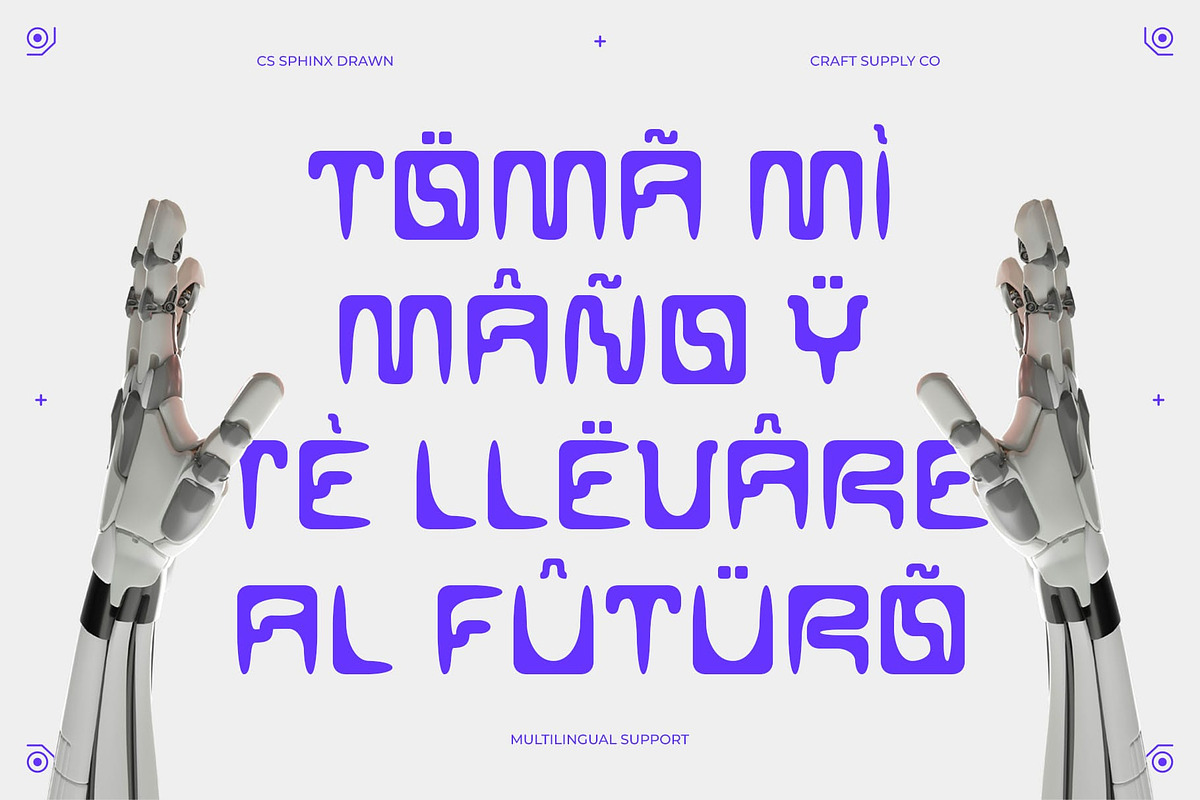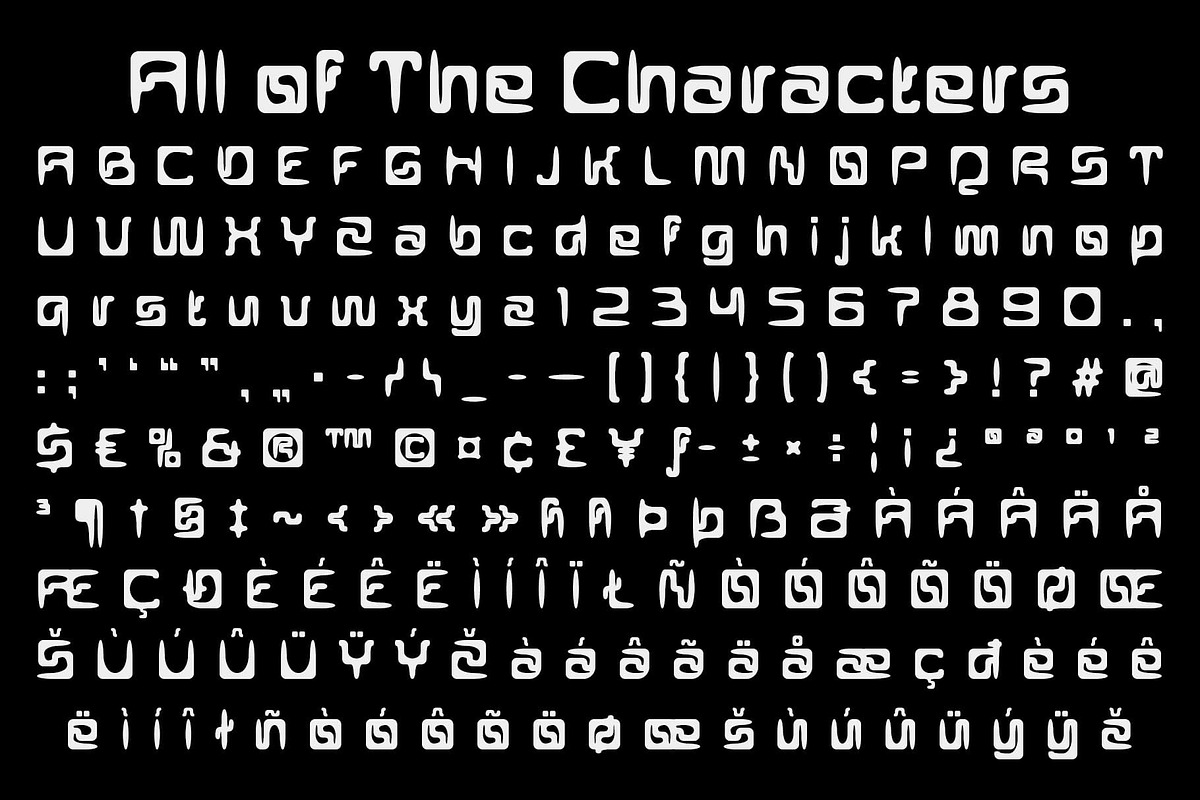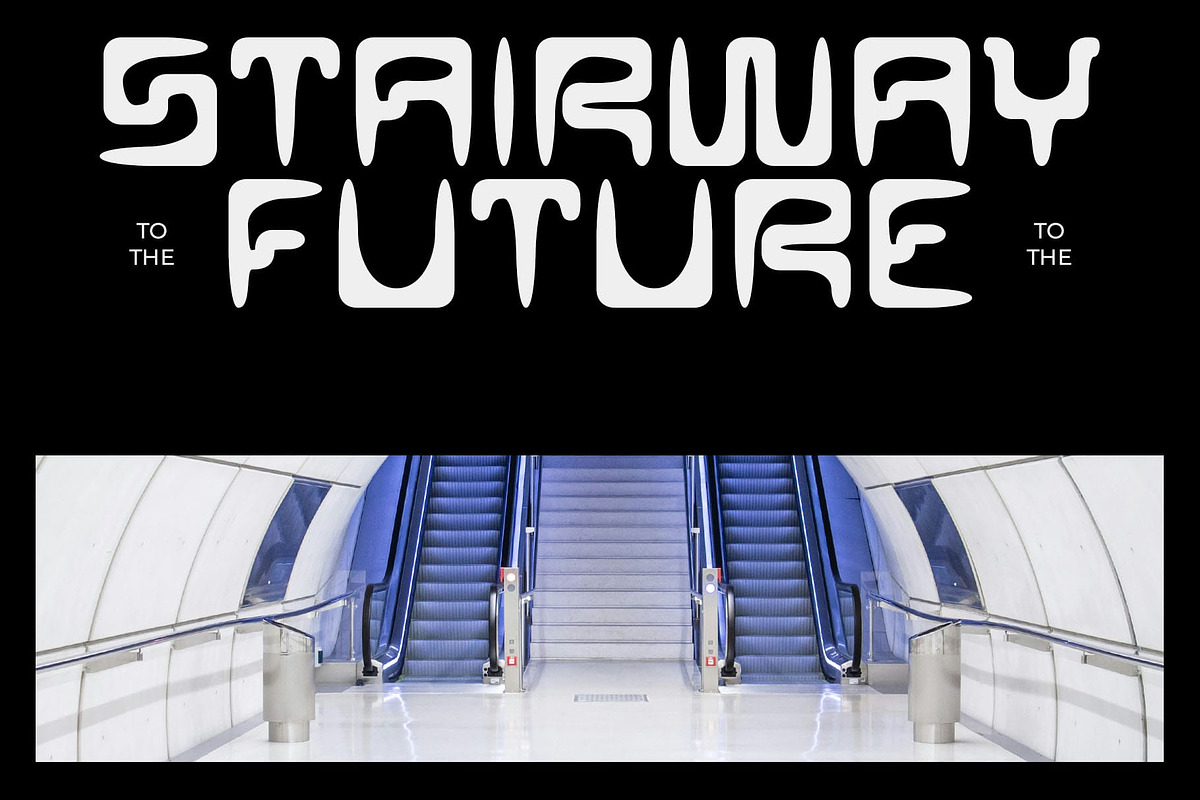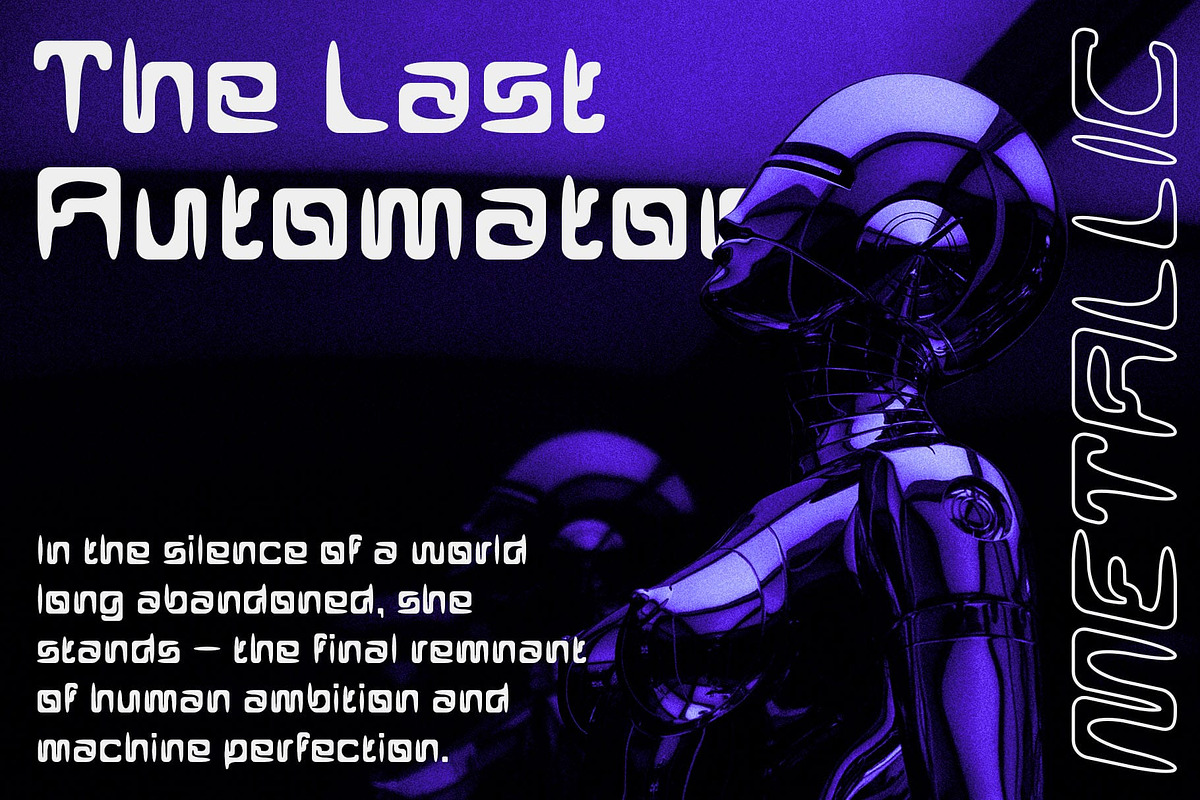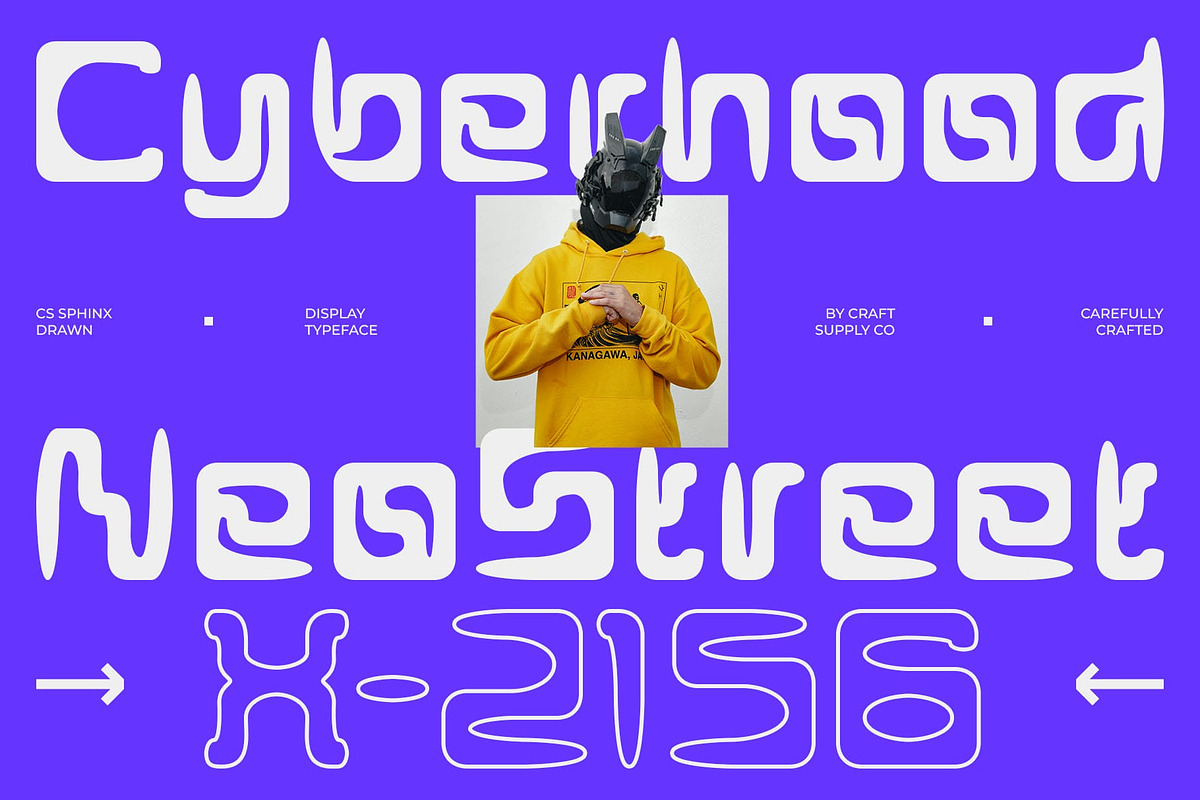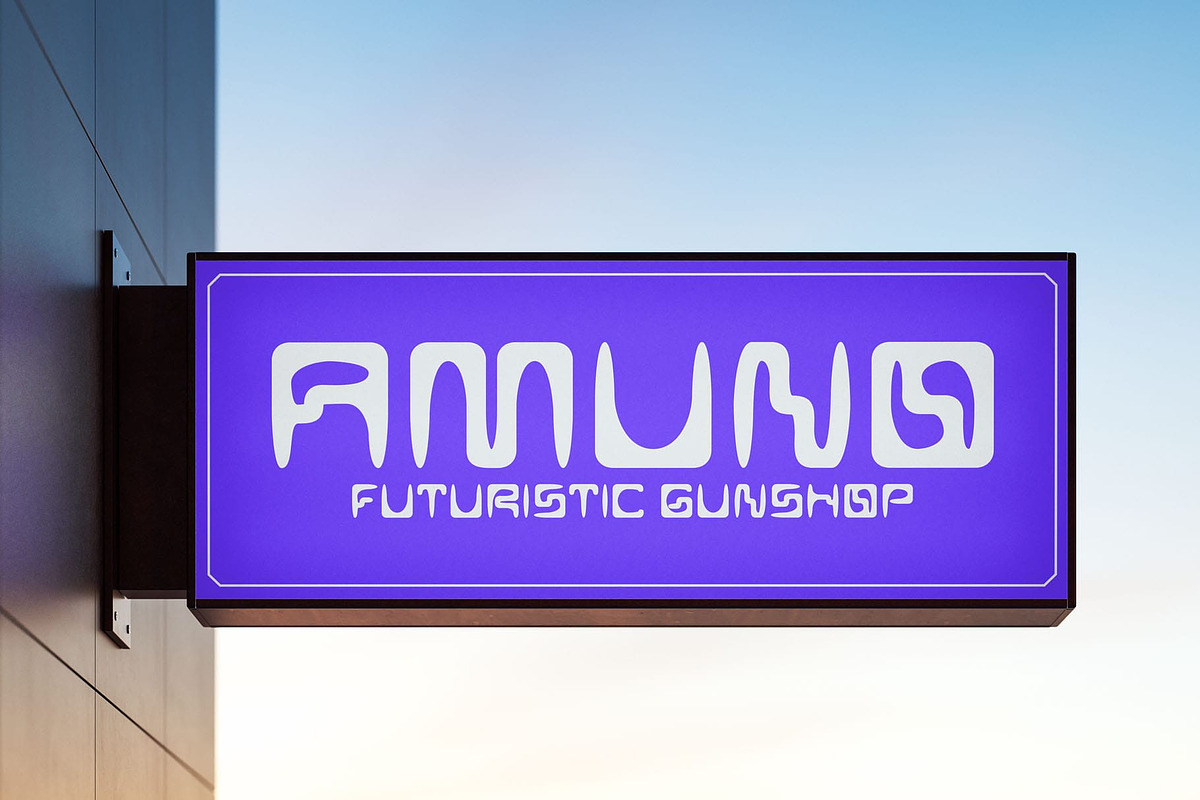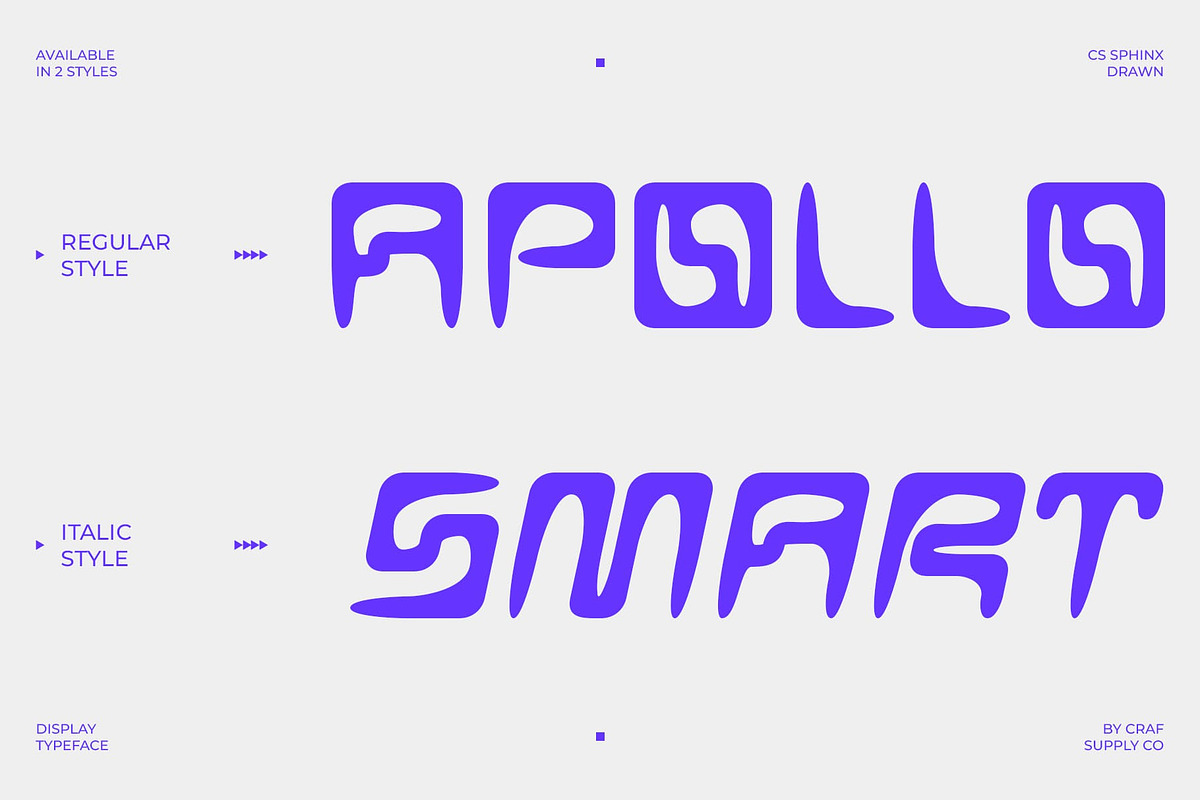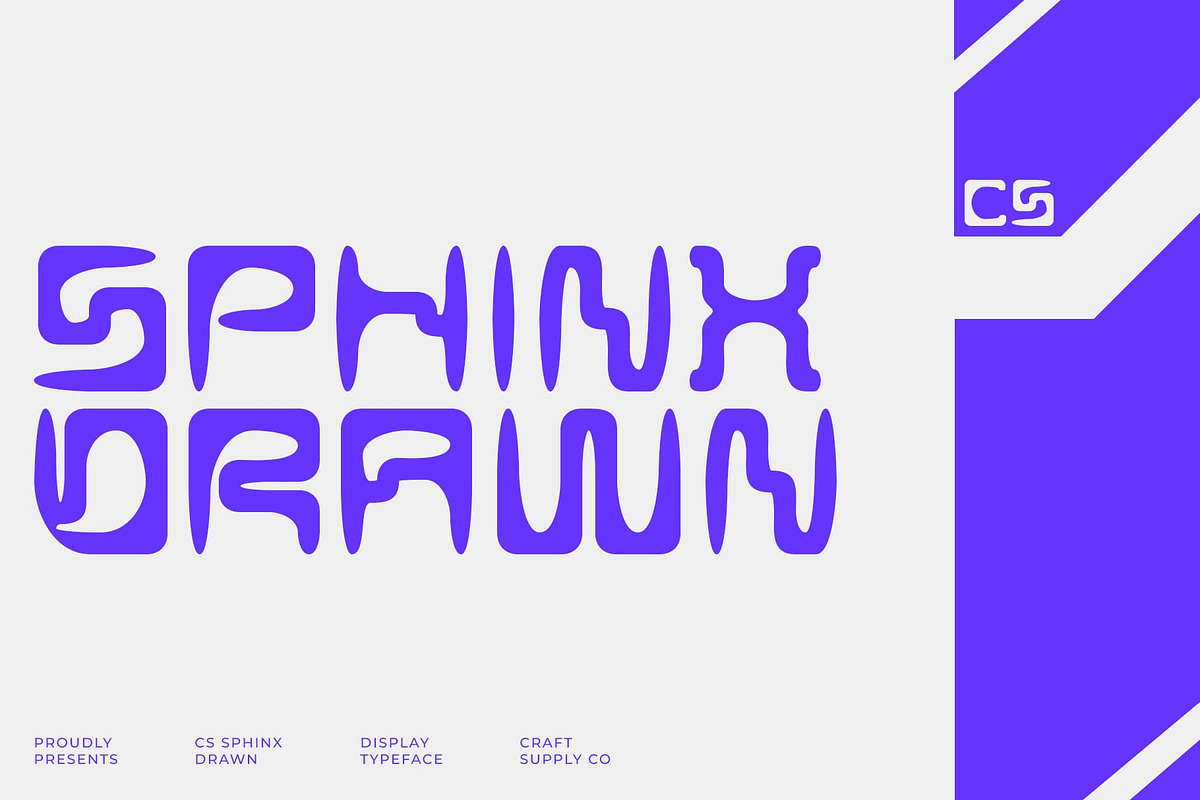
CS Sphinx Drawn
CS Sphinx Drawn – Techno Display Font with Futuristic Energy
Modern Techno Inspiration This is a bold display font inspired by the sharp intensity of electric currents. Its techno-influenced design radiates modern energy, making it the perfect choice for projects that demand a striking and futuristic presence. Every character is built with a strong, commanding shape that instantly draws attention.
Hand-Drawn Texture for Distinct Personality What makes font unique is its drawn texture. Unlike purely digital techno fonts, the handmade finish infuses warmth and individuality into its design. These subtle irregularities enhance the font’s character, blending mechanical precision with artistic expression for a look that feels both futuristic and human.
Ideal for Branding and Bold Statements From dynamic logos to edgy posters, excels at creating bold visual statements. Its striking structure is perfect for technology brands, modern advertisements, or digital campaigns that need to emphasize strength and innovation. Wherever boldness is required, this font steps forward with confidence.
Versatility Across Creative Projects Despite its futuristic roots, this font adapts well across multiple design applications. It brings impact to editorial layouts, injects personality into packaging, and elevates event promotions with its electric style. The fusion of modern energy and drawn artistry ensures that your message remains powerful and unforgettable.